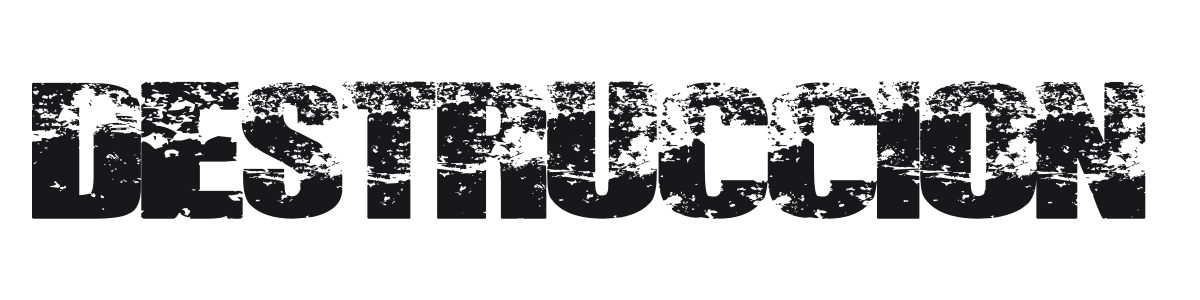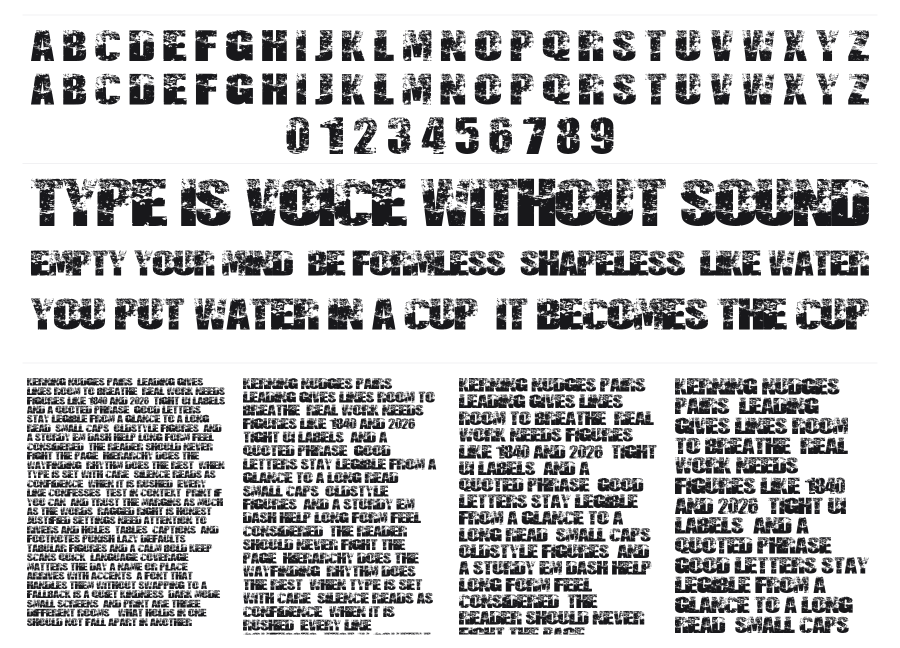
Destruccion
Destruccion is a heavy condensed display face built around aggressive distress, eroding a thick bold structure with coarse, fragmenting texture throughout. The result reads somewhere between a brutalist grotesque and printed-on-concrete — rough, confrontational, and unapologetically heavy. Strong for band posters, gaming titles, and anything that needs an edge.